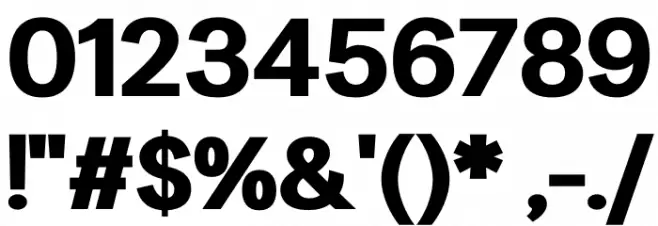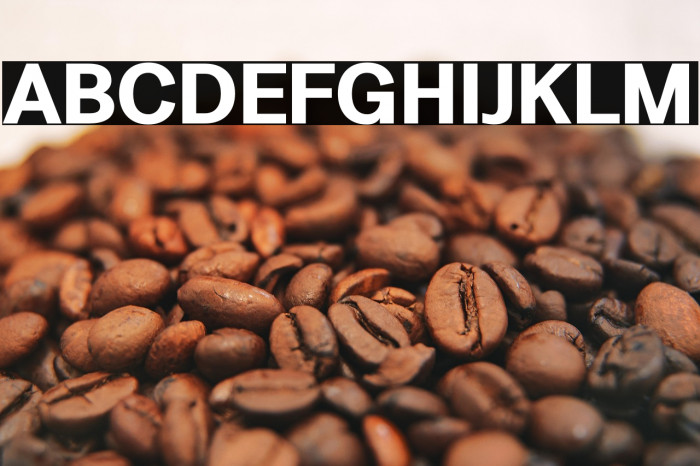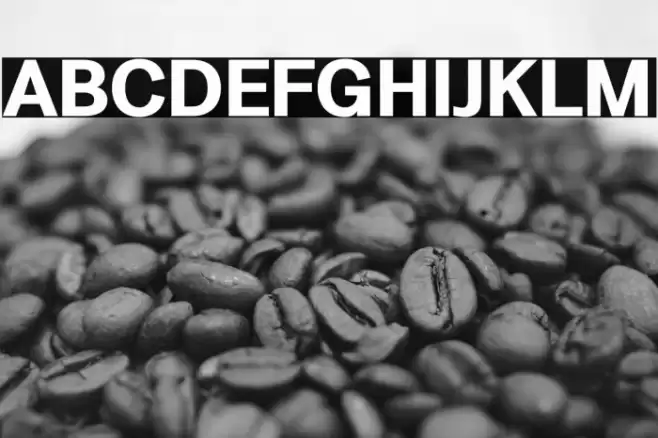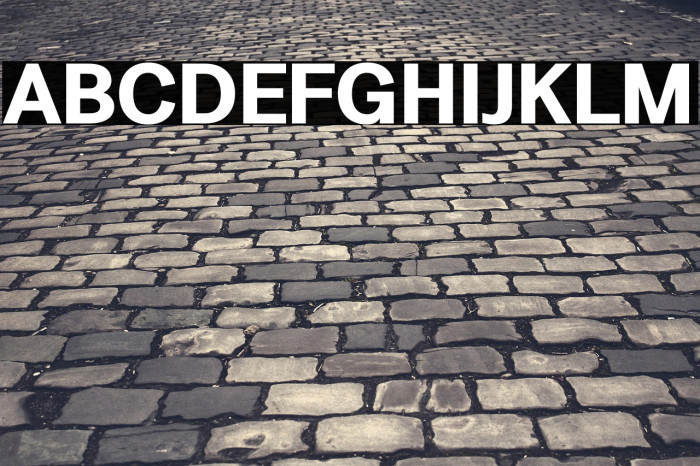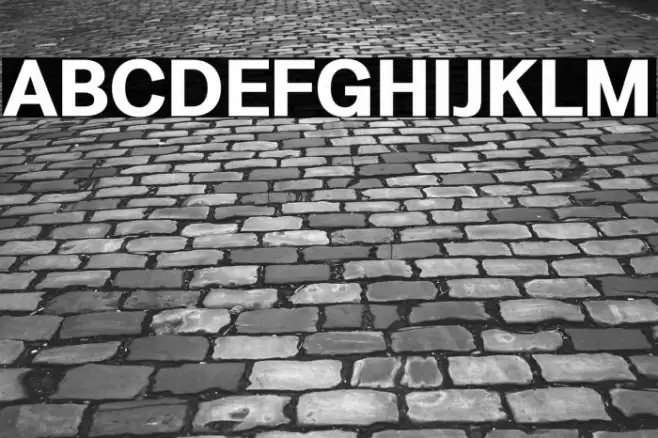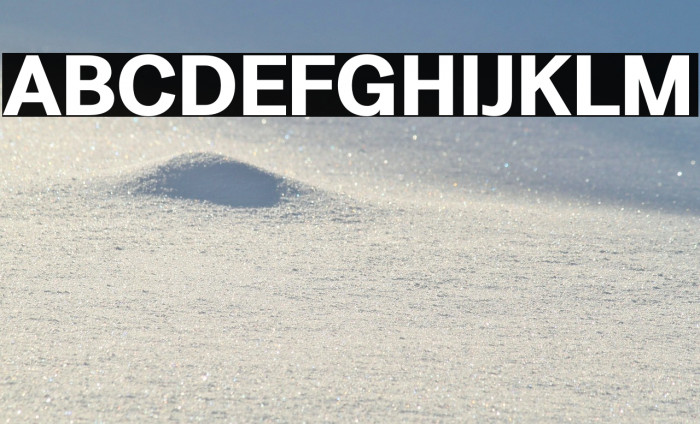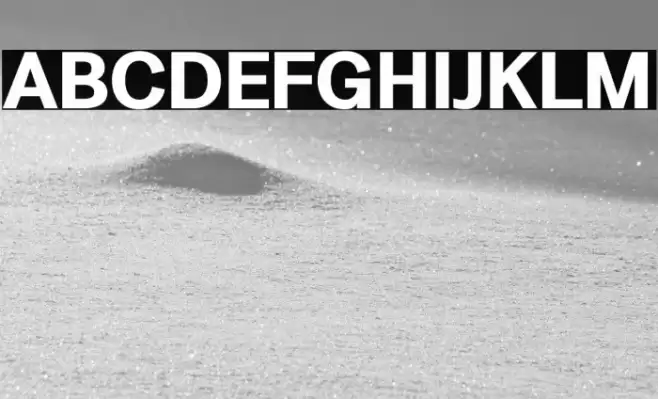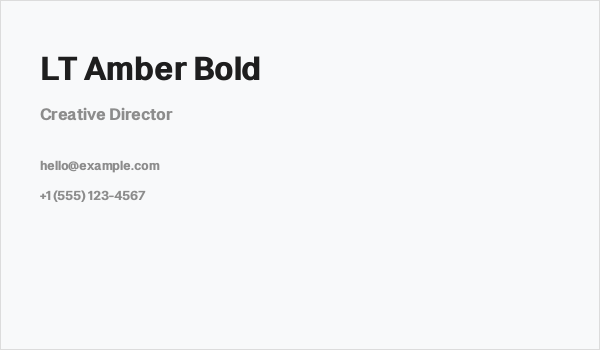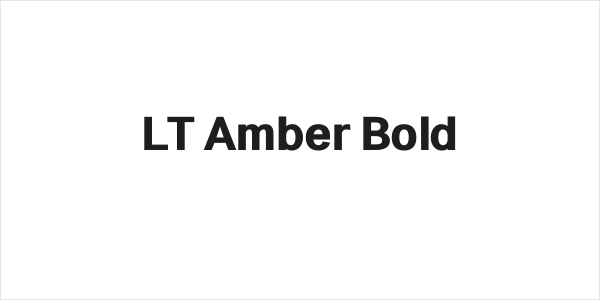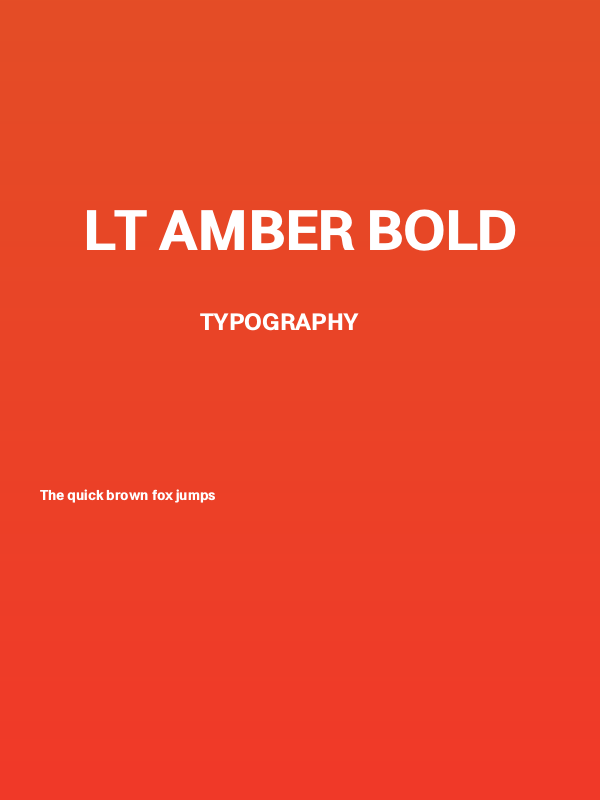
LT Amber Bold Font
LT Amber Bold Description
This font features a bold and assertive design, characterized by its thick strokes and strong presence. The uppercase letters are uniform in height, providing a sense of stability and balance. The lowercase letters maintain a consistent weight, ensuring readability and clarity. The numerals are robust and easily distinguishable, making them suitable for various applications. Special characters are well-defined, adding versatility to the font's usage. Overall, this font exudes confidence and modernity, making it ideal for impactful headlines and branding.
| Proposed Projects | Ideal for branding, headlines, posters, and advertising materials. |